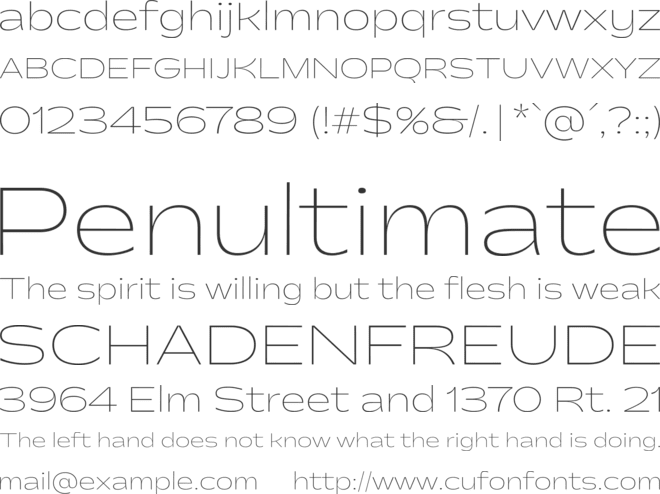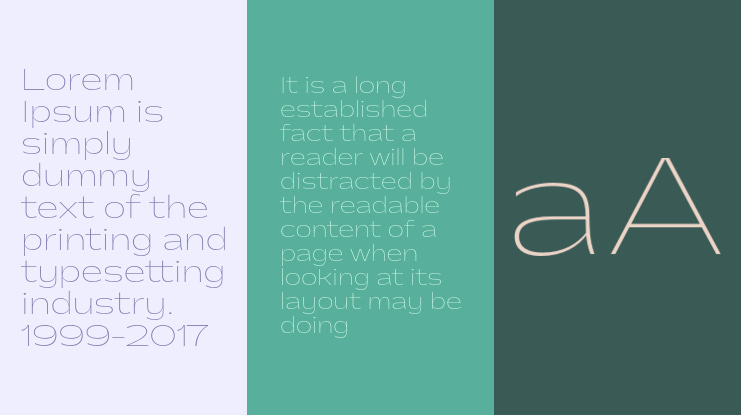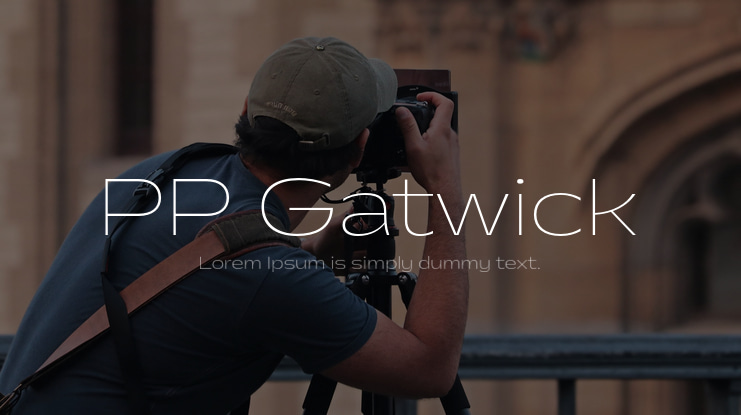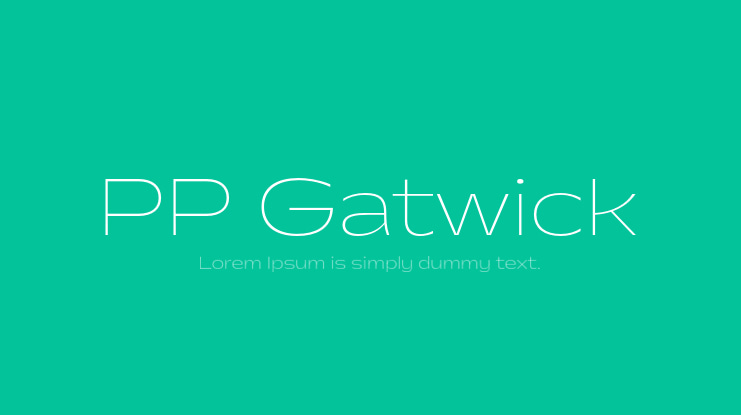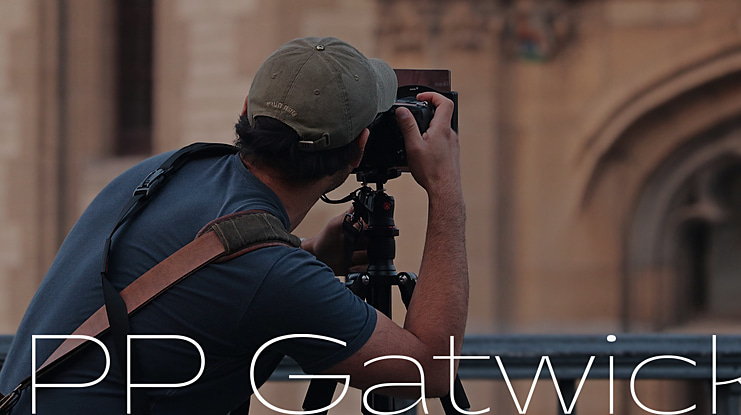
PP Gatwick Font Family
Valerio Monopoli
This is a modern and fashionable sans serif typeface. Vaguely vintage and fiercely syncopated, it is the perfect choice when it comes to displaying names of kung fu movie stars, pretentious yachts and sci-fi convention speakers
And yet the precision in its curves and details gives Gatwick just enough uniqueness to be used in more than just display settings.